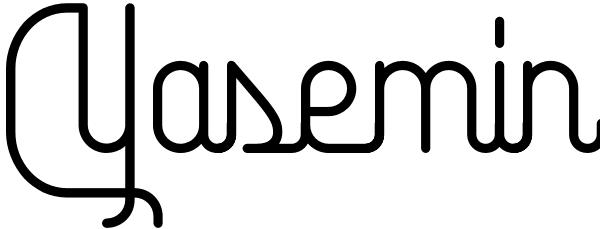
Yasemin
My wife name is Yasemin. After building this character, I wanted to honor with my wife's name. I think I fully reflects the character I created in my mind. I needed such a character and tried to create ornaments connected glyphs. I hope you enjoy...